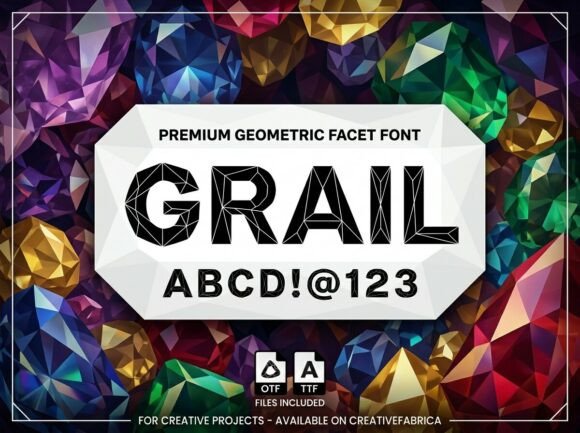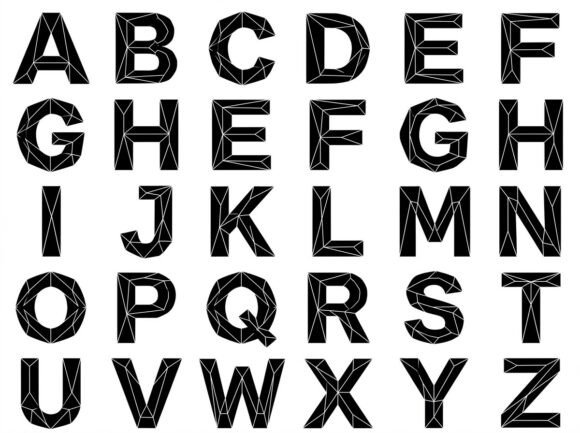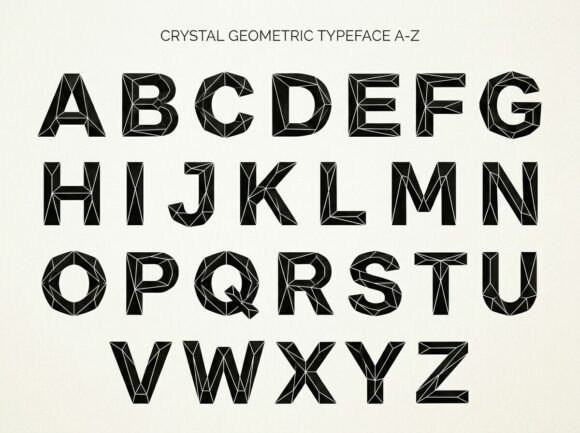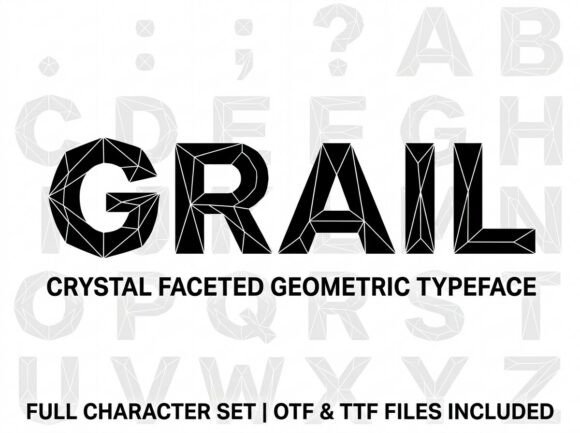
Introducing Grail Font: The Ultimate Decorative Display Font for Creators
Are you tired of using the same old fonts for your designs? Look no further than Grail Font, a stunning decorative display font that’s sure to turn heads. With its unique artistic elements and strong visual personality, this font is perfect for creators who want to break away from the ordinary and make a statement.
What is Grail Font?
Grail Font is a decorative display font designed to be the center of attention. Its unique and artistic elements make it perfect for bold headlines, artistic logos, and creative packaging. This font is versatile enough to be used in a variety of design projects, from branding and advertising to packaging and editorial design.
Key Features of Grail Font
- Unique Artistic Elements: Grail Font features unique artistic elements that set it apart from other fonts. Each letter is carefully crafted to make a statement and add visual interest to your designs.
- Strong Visual Personality: This font has a strong visual personality that’s sure to grab attention. Whether you’re using it for a headline, logo, or packaging, Grail Font is sure to make an impact.
- Versatile: Grail Font is versatile enough to be used in a variety of design projects. It’s perfect for bold headlines, artistic logos, and creative packaging.
- Professional and Polished Finish: Despite its decorative nature, Grail Font maintains a professional and polished finish that’s suitable for even the most high-end design projects.
IMPORTANT NOTE BEFORE PURCHASE: Grail Font is an ALL-CAPS (Uppercase Only) display typeface. It does not include lowercase letters. It is specifically designed for high-impact headlines, logos, and decorative initials where every letter is a work of art.
Why Choose Grail Font?
There are many reasons why Grail Font is the perfect choice for creators. Here are just a few:
- Stand Out from the Crowd: With Grail Font, you can create designs that stand out from the crowd. Its unique artistic elements and strong visual personality make it perfect for creators who want to make a statement.
- High-Quality Design: Grail Font is designed to the highest standards. Each letter is carefully crafted to ensure that it looks great in any design project.
How to Use Grail Font
Grail Font is perfect for a wide range of design projects, including:
- Headlines: Use Grail Font to create bold and eye-catching headlines that grab attention.
- Logos: Create stunning logos that showcase your brand’s personality and style.
- Packaging: Use Grail Font to create eye-catching packaging that stands out on store shelves.
- Editorial Design: Add a touch of elegance and sophistication to your editorial designs with Grail Font.
In conclusion, Grail Font is a stunning decorative display font that’s perfect for creators who want to make a statement. With its unique artistic elements, strong visual personality, and versatility, this font is sure to become a go-to choice for designers and crafters. Whether you’re looking to create bold headlines, artistic logos, or creative packaging, Grail Font is the perfect choice.